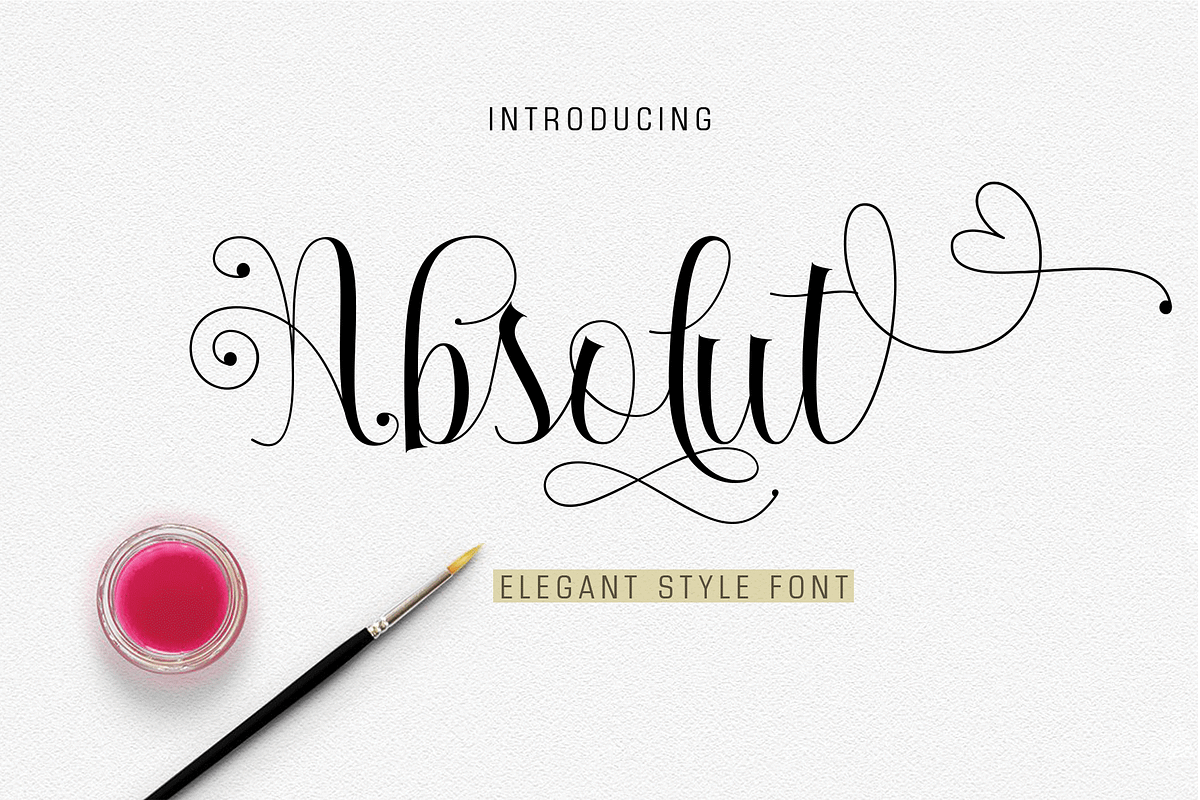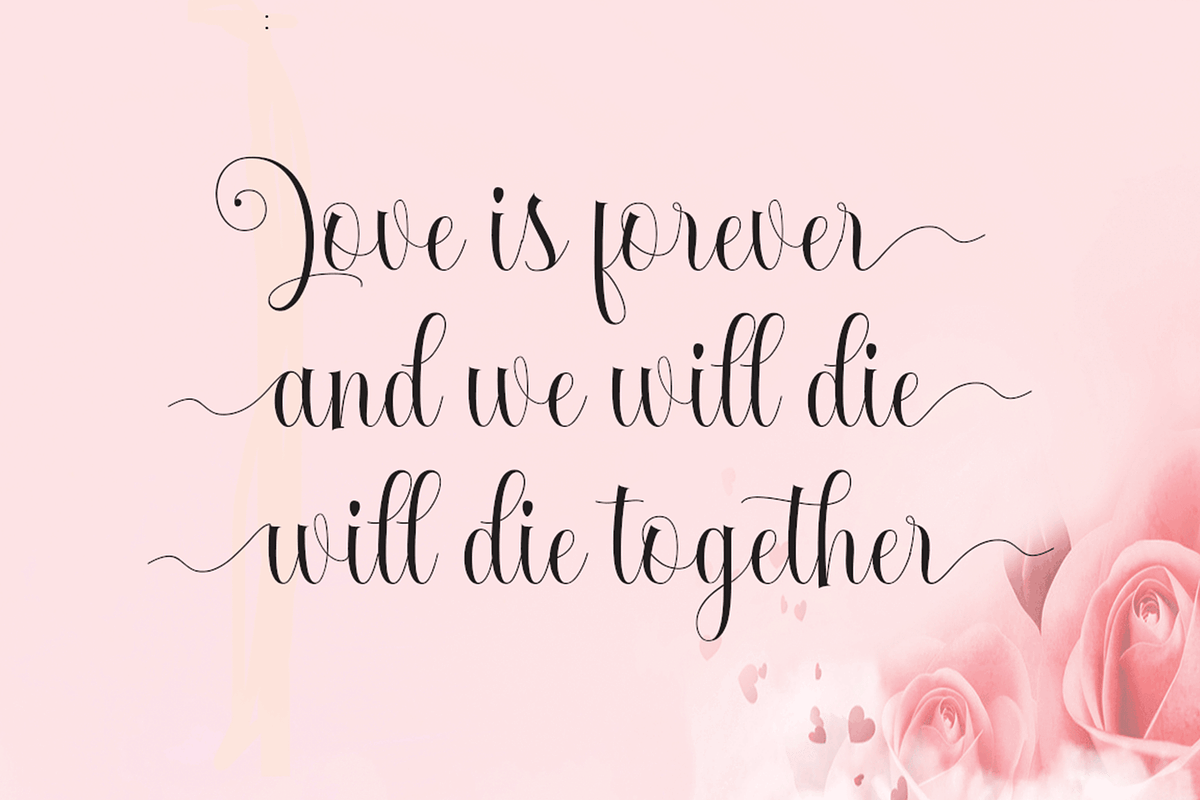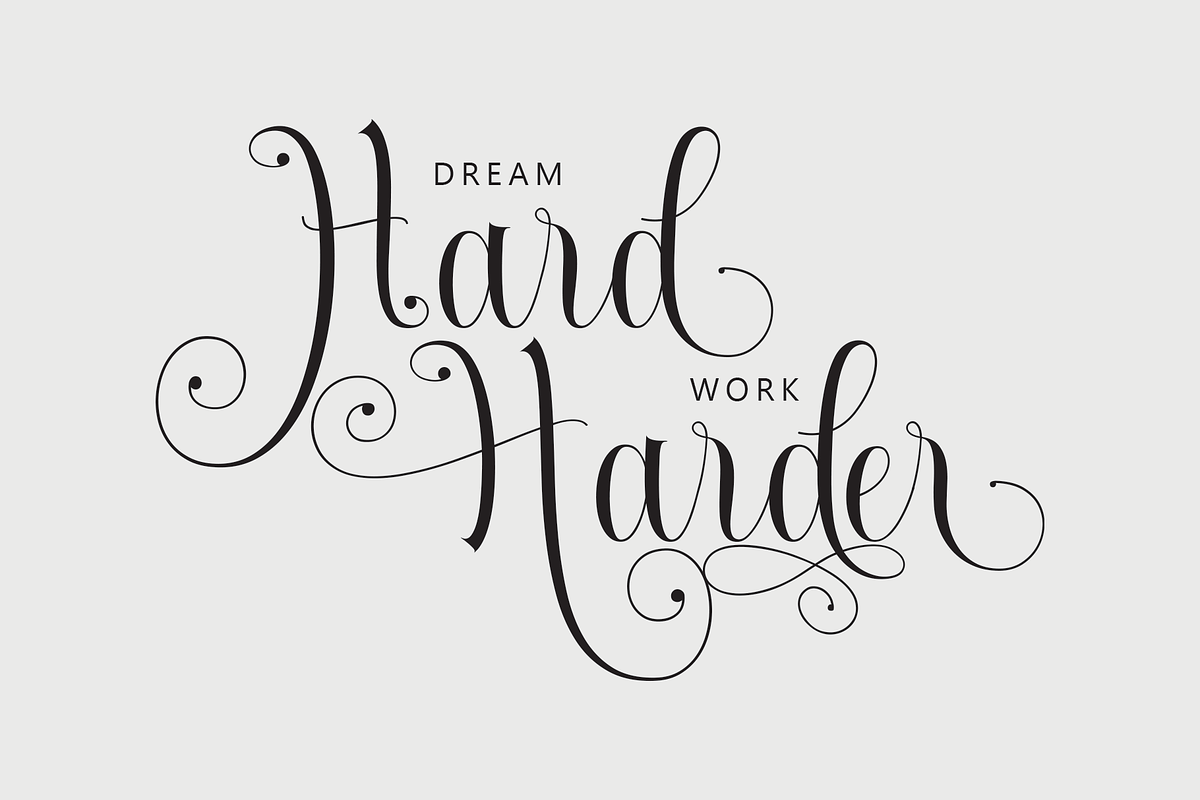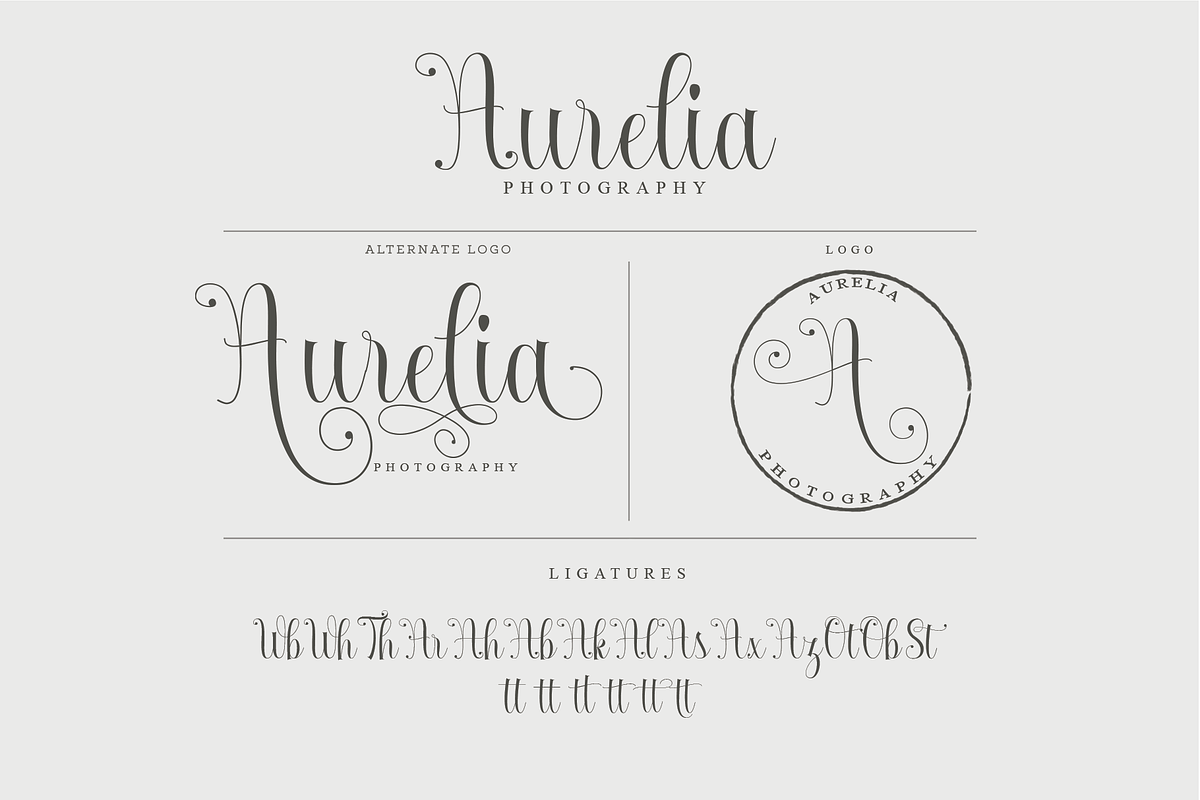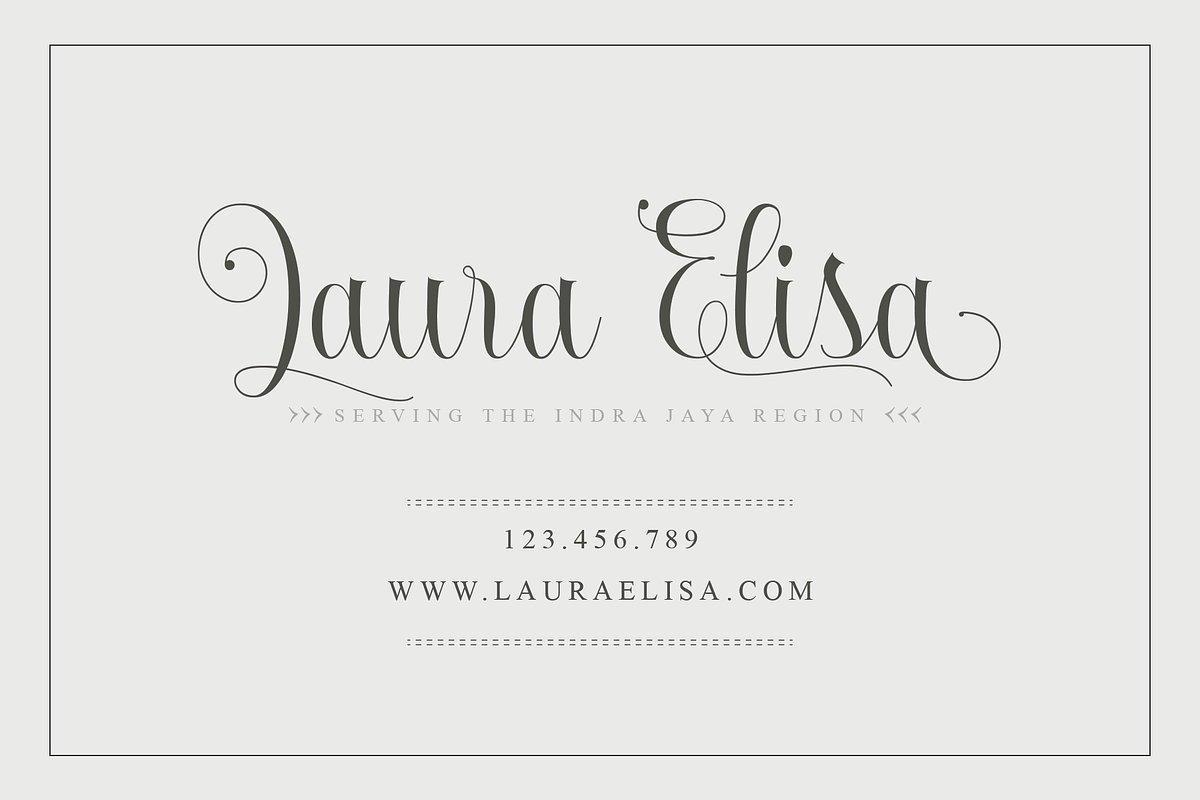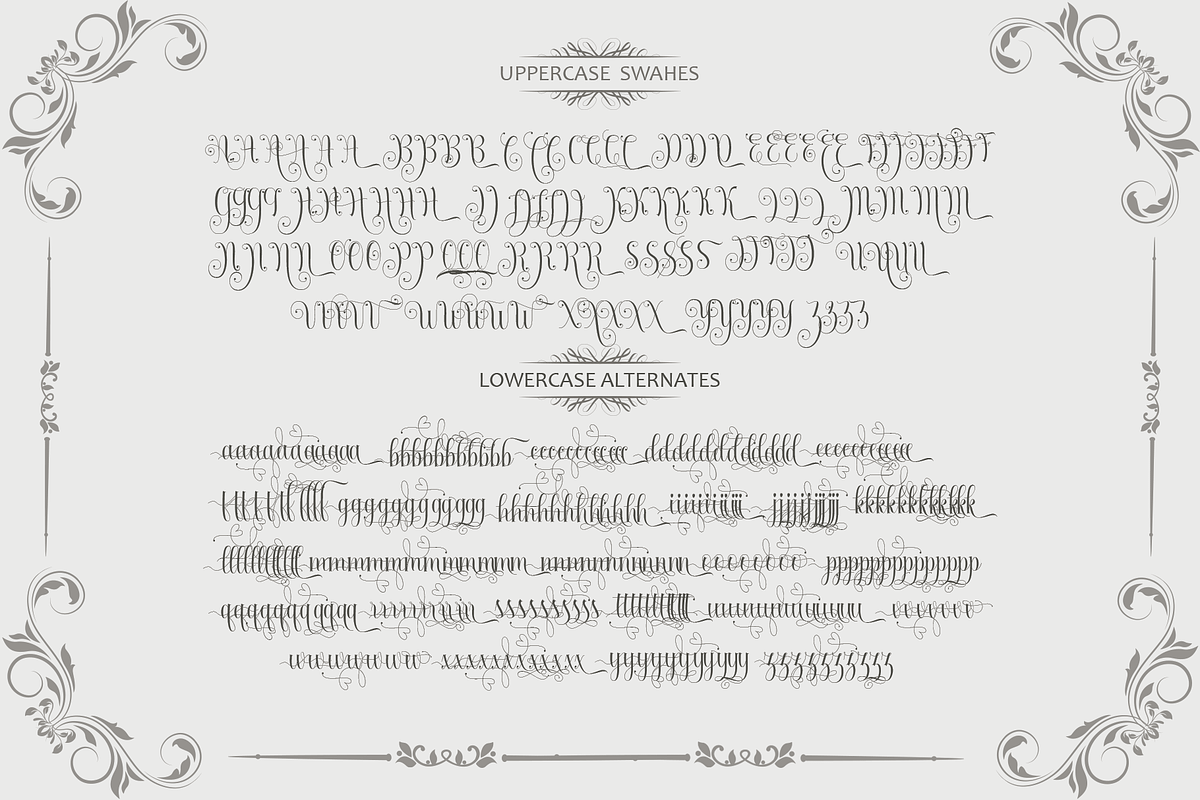
Absolut
Absolut is a script font that is beautiful and unique, it is a model of modern calligraphy typefaces, in combination with a calligraphy writing style. The Features of this fonts is;
Standart ligatures Discretionary ligatures Initial Forms Terminal Forms Stylistic Alternates Stylistic sets File font Wolfsbane Include ;